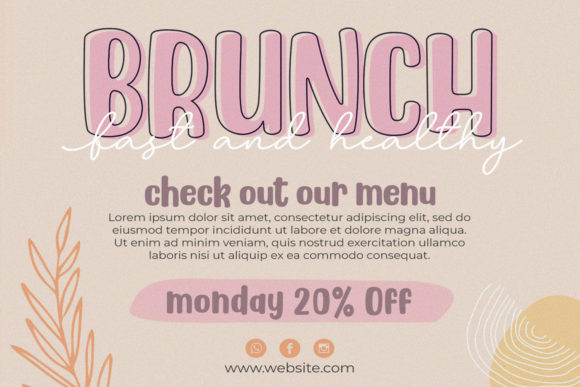
Looking for the perfect font to add a touch of whimsy to your projects? Look no further than Twinkling Stars Font! Created by Subectype, this cute and lovely duo font (script and display) is sure to catch your eye.
Whether used together or separately, Twinkling Stars Font is perfect for adding a chic and cheery touch to your crafts. With its playful curves and elegant flourishes, this font family is ideal for creating eye-catching designs that are sure to impress.
What's more, Twinkling Stars Font is PUA encoded, which means you can easily access all glyphs and swashes with ease! This makes it the perfect choice for designers who want to create truly unique and personalized designs.
So why wait? If you're looking for the best fonts for signature, Twinkling Stars Font is the perfect choice. With its beautiful curves and delightful swashes, this font is sure to make your designs stand out from the crowd. So why not give it a try today and see what all the fuss is about?